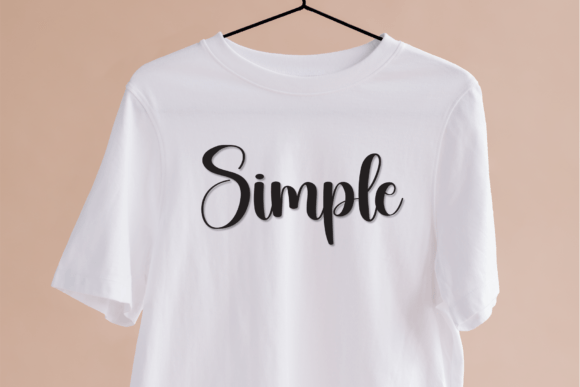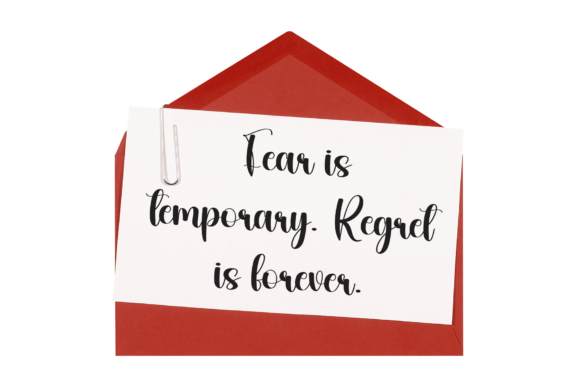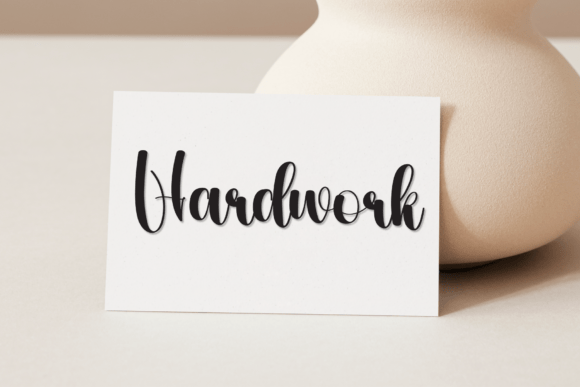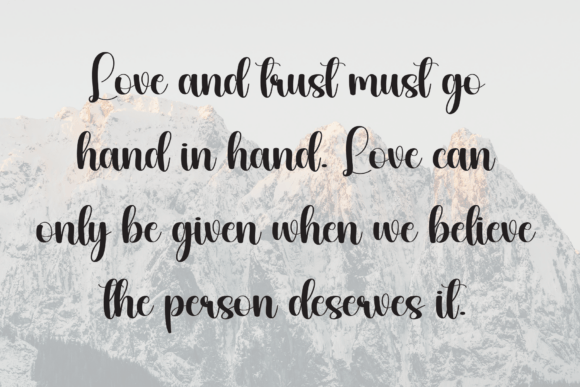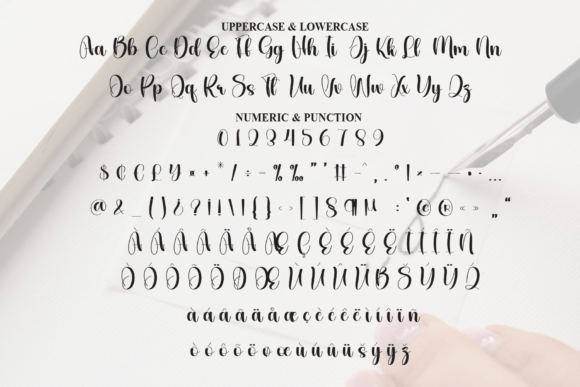
Introducing Sweet Friend: The Autography Font that Spreads Joy and Whimsy
Are you tired of using the same old fonts for your design projects? Look no further than Sweet Friend, a delightful handwritten display font that’s bursting with friendliness and charm. This playful font is perfect for crafters and designers who want to add a touch of whimsy to their work, making it an excellent pick for wedding invitations, personalized cards, and any design project that calls for a sprinkle of fun.
The Story Behind Sweet Friend
Sweet Friend is more than just a font – it’s a way to infuse your designs with warmth and personality. Its playful essence is reminiscent of casual handwriting, but with a level of elegance that’s hard to resist. Whether you’re a seasoned designer or a crafty DIY enthusiast, Sweet Friend is the perfect tool to help you create designs that tell a captivating tale.
What Makes Sweet Friend So Special?
- Playful yet Elegant: Sweet Friend strikes the perfect balance between playfulness and sophistication, making it suitable for a wide range of design projects.
- Handwritten Charm: This font’s handwritten essence gives it a unique, personal touch that’s sure to capture the hearts of your audience.
- Versatile: From wedding invitations to social media graphics, Sweet Friend can be used in various design projects to add a touch of whimsy and friendliness.
- Easy to Read: Despite its playful nature, Sweet Friend remains easy to read, ensuring that your message is conveyed clearly and effectively.
How to Use Sweet Friend in Your Design Projects
Sweet Friend is incredibly versatile, and its uses are endless. Here are a few ideas to get you started:
- Wedding Invitations: Add a touch of romance and whimsy to your wedding invitations with Sweet Friend.
- Personalized Cards: Make your cards stand out with Sweet Friend’s playful, handwritten charm.
- Social Media Graphics: Use Sweet Friend to add a personal touch to your social media graphics, making them more relatable and engaging.
- Branding: Incorporate Sweet Friend into your brand’s visual identity to convey a sense of friendliness and approachability.
Tips for Getting the Most Out of Sweet Friend
To ensure you get the most out of Sweet Friend, here are a few tips to keep in mind:
- Experiment with Colors: Sweet Friend looks great in a variety of colors, so don’t be afraid to experiment and find the perfect hue for your design.
- Mix and Match: Combine Sweet Friend with other fonts to create a unique and visually appealing design.
- Play with Size: Sweet Friend looks great in various sizes, so experiment with different font sizes to add emphasis and create visual hierarchy.